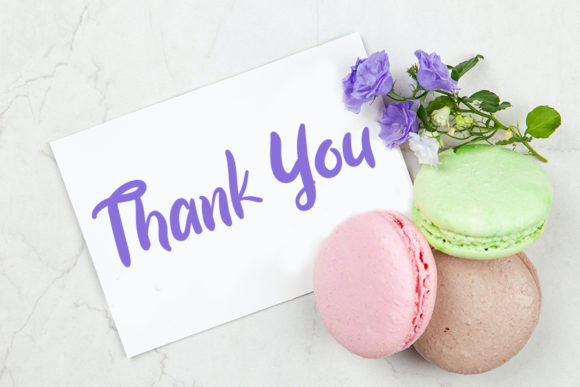
Introduction to Malkissat Font
Have you ever stumbled upon a design project where the perfect font eluded you, and your creativity seemed to be stuck in neutral? I know I have. It’s those moments when we’re searching for that special something to elevate our work that remind us just how valuable a high-quality font can be.
That’s where the Malkissat Font comes in – a beautiful, handwritten font that’s as sweet as it is versatile. Whether you’re working on a personal project or a client-based design, this font is sure to bring a touch of elegance and sophistication to your work. With its flowing lines and transparent background, the Malkissat Font is the perfect addition to any creative project.
Key Features of Malkissat Font
- High-quality, elegant design perfect for creative projects and designs
- Features a transparent background, allowing for easy layering and customization
- Includes multiple font styles and weights, including bold, italic, and regular
- Designed to be a versatile design resource, suitable for a wide range of creative projects
Honest Review: Malkissat Font
I recently stumbled upon the Malkissat Font and was excited to give it a try in my latest creative project. Overall, I found it to be a great addition to my design resource arsenal.
What works well is its high quality and sleek design. The transparent background makes it easy to overlay on top of other design elements. Additionally, the free download option is a major plus for designers on a budget.
The font is perfect for designers who want to add a touch of sophistication to their projects. Here are some of its key features:
- High-quality, professional design
- Transparent background for easy overlaying
- Perfect for creative projects, such as brochures, posters, and business cards
However, I did notice a few limitations ⚠️. The font can be a bit tricky to customize, and some of the letters may not display correctly in certain fonts sizes. But overall, I think the benefits far outweigh the drawbacks.
Overall, I’m really impressed with the Malkissat Font and would highly recommend it to fellow designers. It’s a great addition to any design resource library and is sure to elevate your creative projects. ✨
Malkissat Font
The Malkissat Font is a high-quality, elegant font that can add a touch of sophistication to any creative project. With its transparent background and clean design, it’s perfect for designers looking for a unique and stylish font.
To get the most out of the Malkissat Font, try using it in combination with other design elements, such as bold lines and bright colors. You can also use it in a variety of design projects, from business cards to wedding invitations.
The Malkissat Font is perfect for designers who want to add a touch of elegance to their designs. Some common use cases include:
- Product labels and packaging
- Designing for social media and blogs
Can I modify the Malkissat Font to suit my design needs?